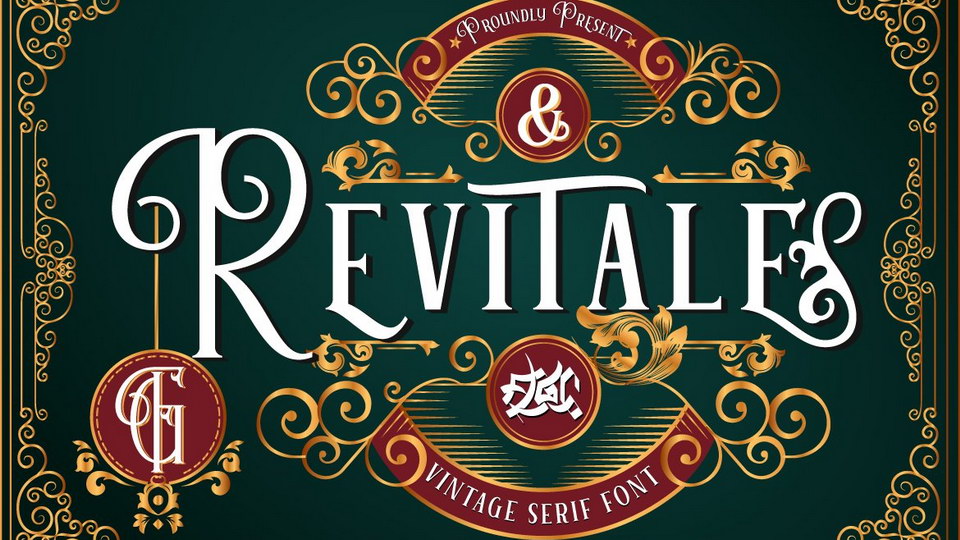
Download Revitale font, a decorative display typeface that stands out as a diverse selection of typefaces, with beautiful alternates character to maintain a coherent look and feel throughout.